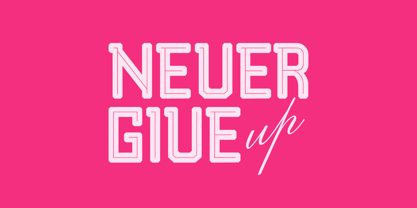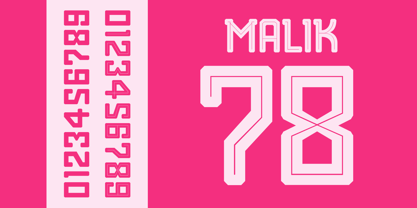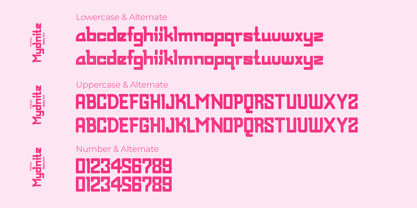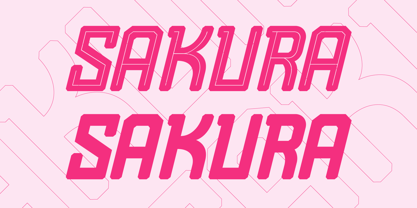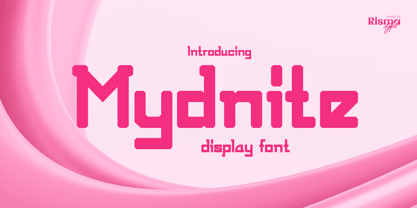
Mydnite
Mydnite – Display Font for Bold Sophistication
Mydnite is a striking display font crafted to leave a powerful impression. Featuring bold, commanding letterforms with refined, artistic touches, Mydnite masterfully blends classic sophistication with a modern edge. Perfect for projects demanding a strong visual identity, Mydnite excels in branding, editorial layouts, luxury packaging, and high-impact campaigns.
Designed with a focus on both style and clarity, Mydnite elevates any design with its confident and polished presence. Its adaptability makes it a versatile choice for both print and digital media, ideal for designers who seek a harmonious balance between timeless tradition and contemporary flair.
Key Features
• Distinctive and bold display font style
• Multiple stylistic options for versatile design applications
• Optimized for branding, editorial, and luxury visual projects
• Multi-language support for international reach
• Crafted for high-impact, stylish, and sophisticated typography
Mydnite captures strength and elegance in every curve and line, delivering a font that speaks with undeniable confidence and timeless charm.